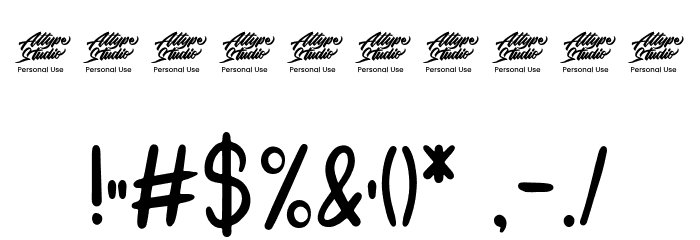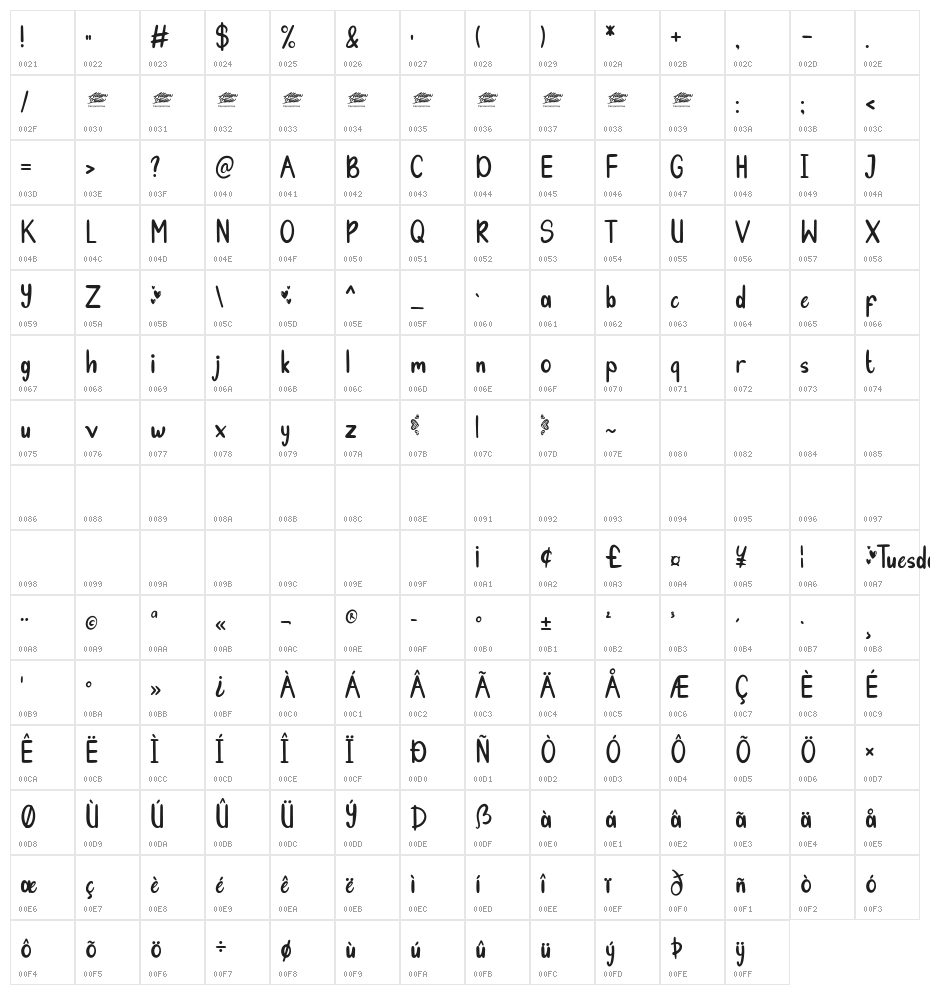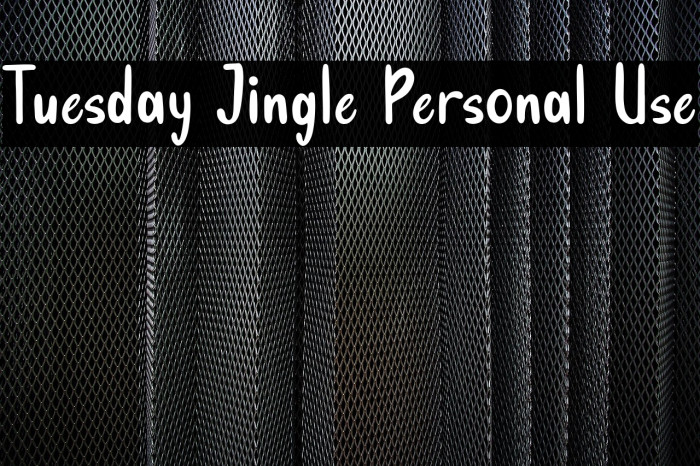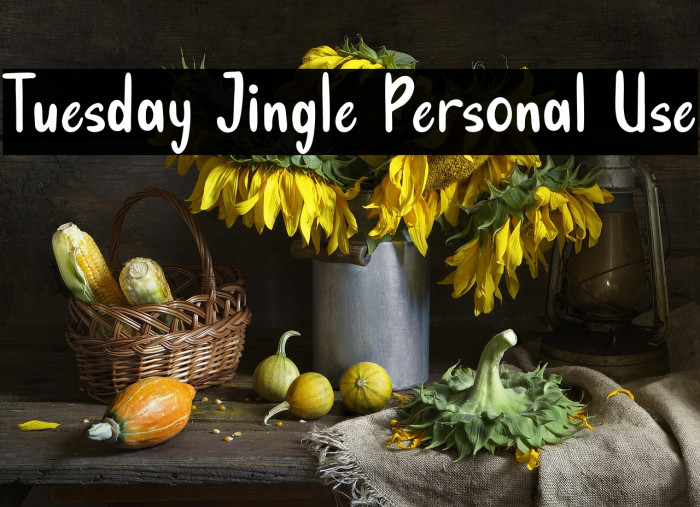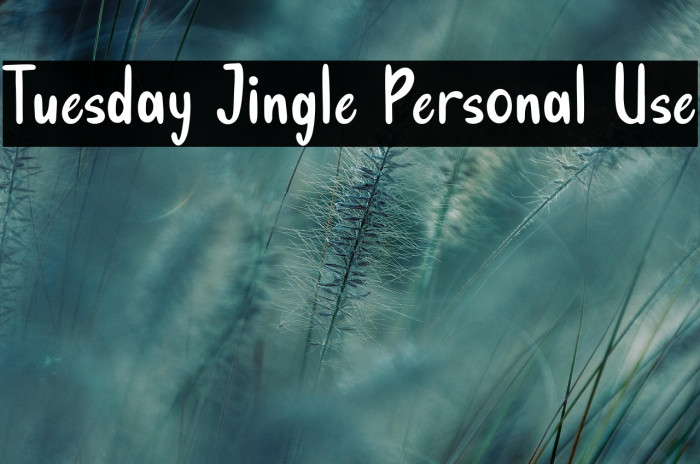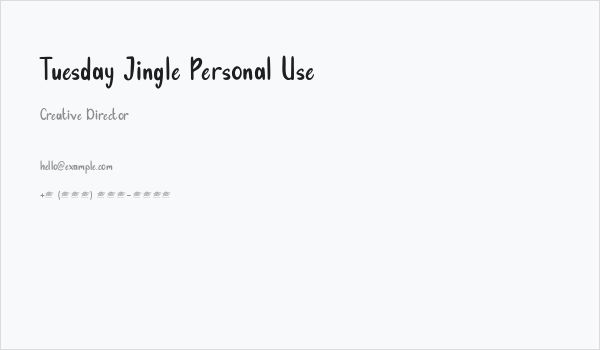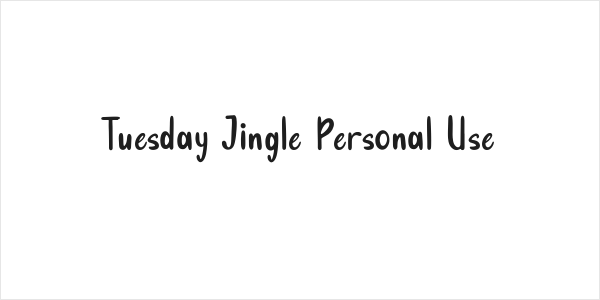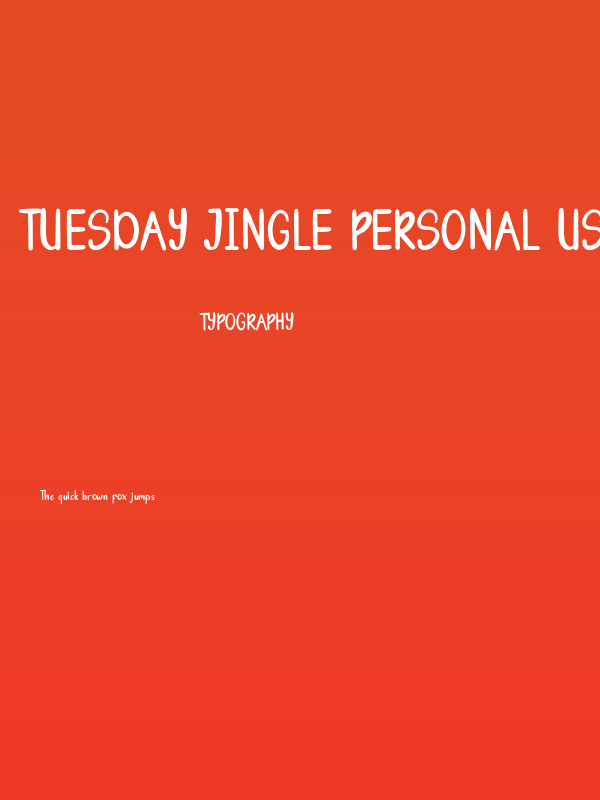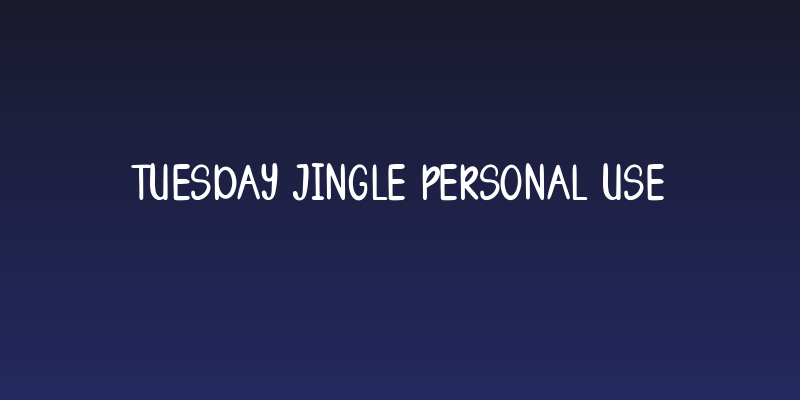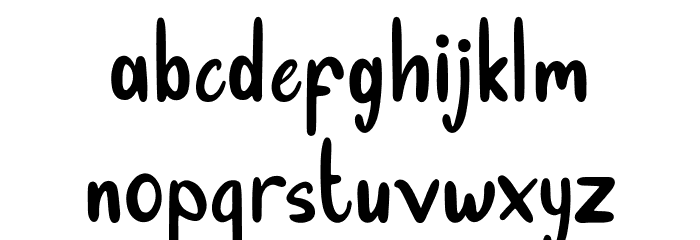
Tuesday Jingle Personal Use Font
Tuesday Jingle Personal Use Description
This font features a playful and casual handwritten style, characterized by its smooth, rounded edges and slightly irregular letterforms. The uppercase letters are bold and prominent, while the lowercase letters maintain a consistent flow, adding a touch of whimsy. The numbers and special characters follow the same playful aesthetic, making the font versatile for various creative projects. The overall appearance is friendly and approachable, suitable for designs that aim to convey warmth and personality.
| Use Case | Logos, Headlines, Social Media |
| Proposed Projects | Ideal for greeting cards, children's books, playful branding, and social media graphics. |